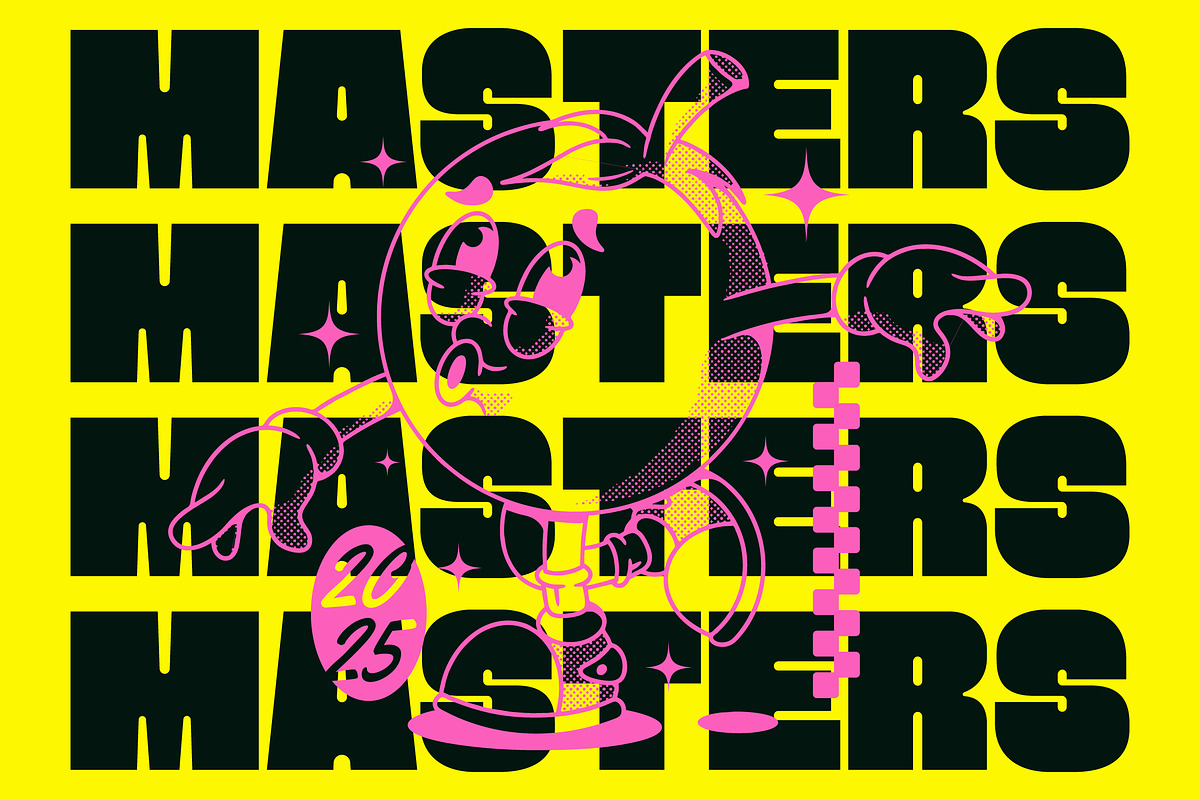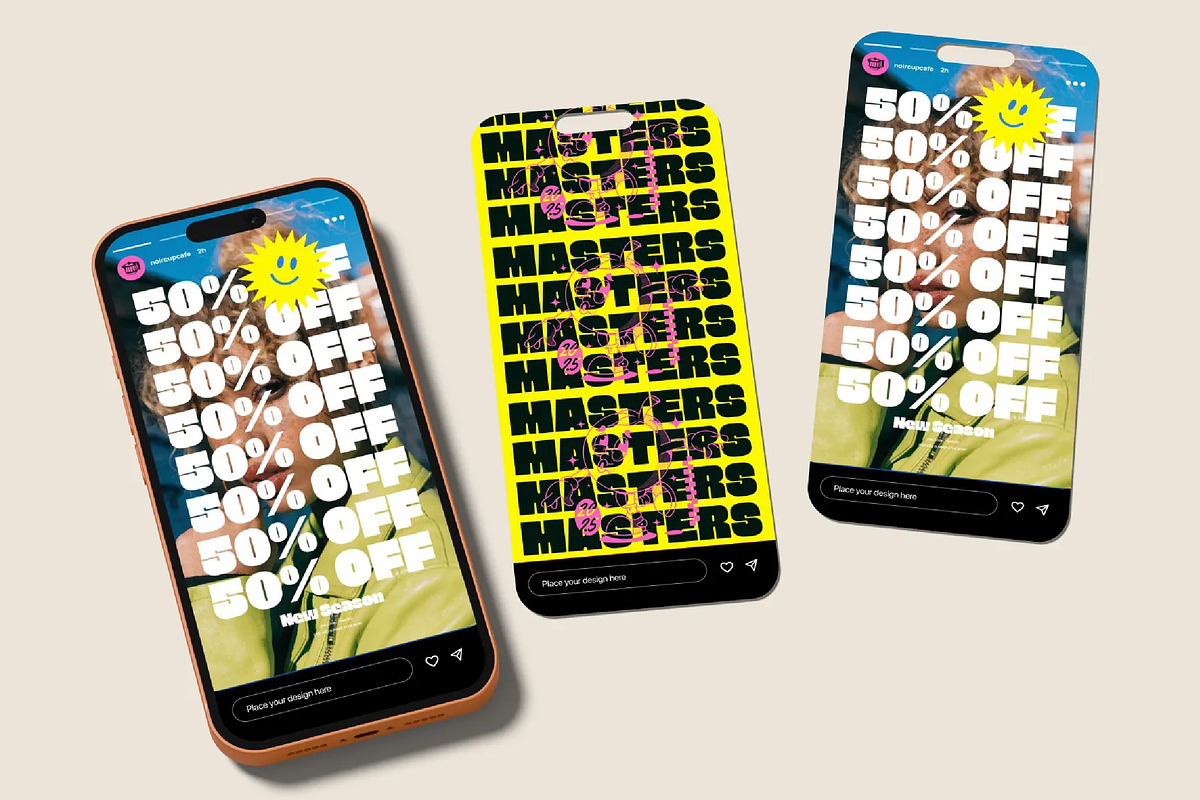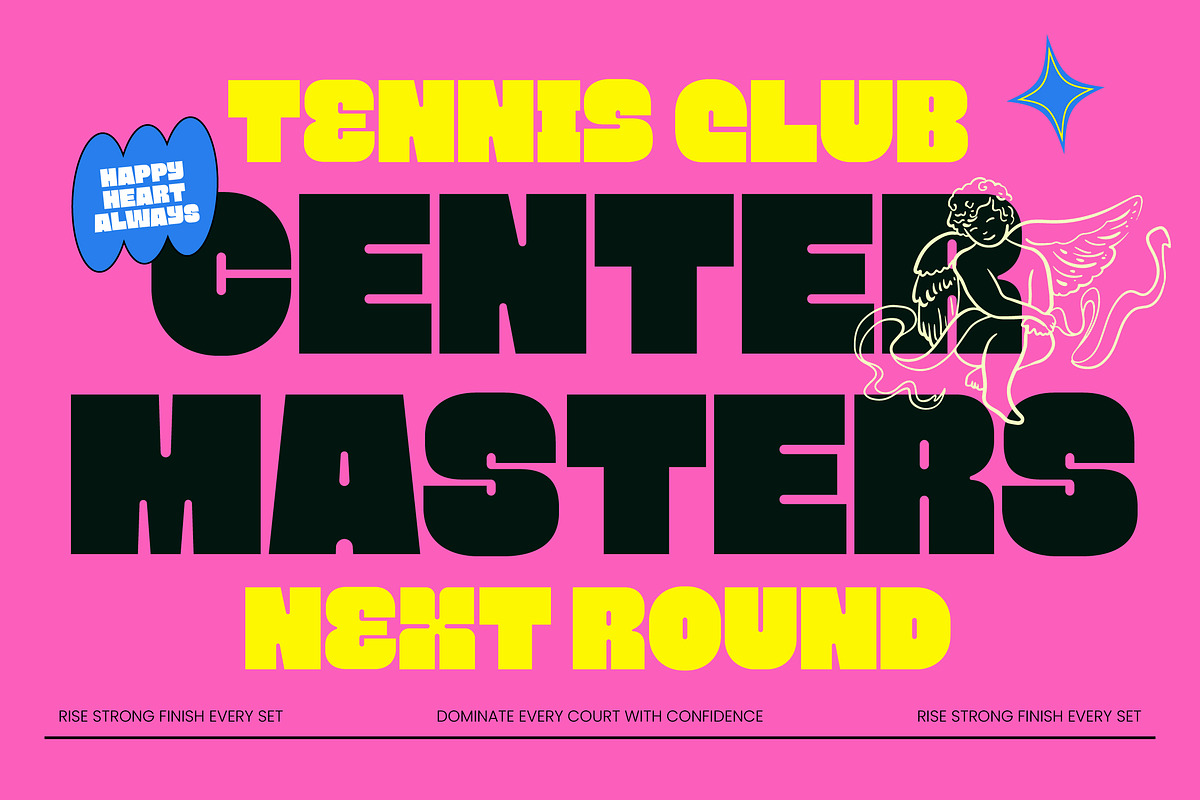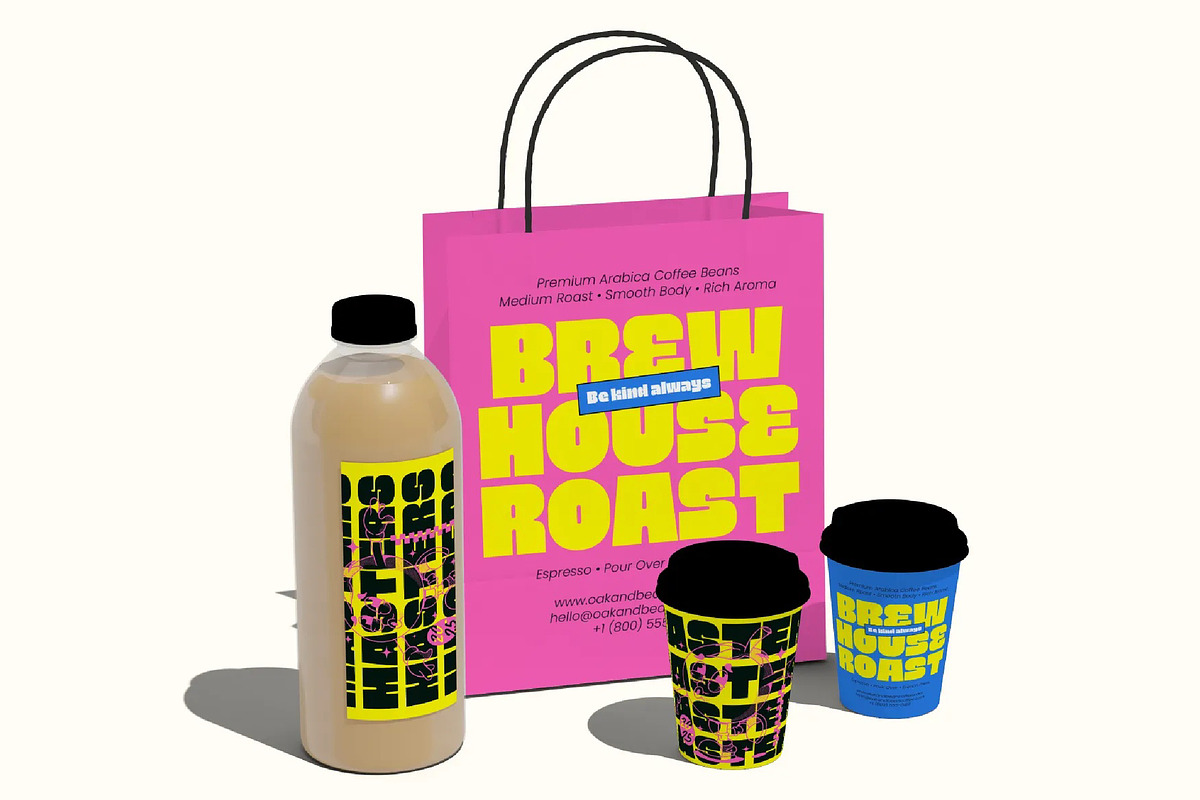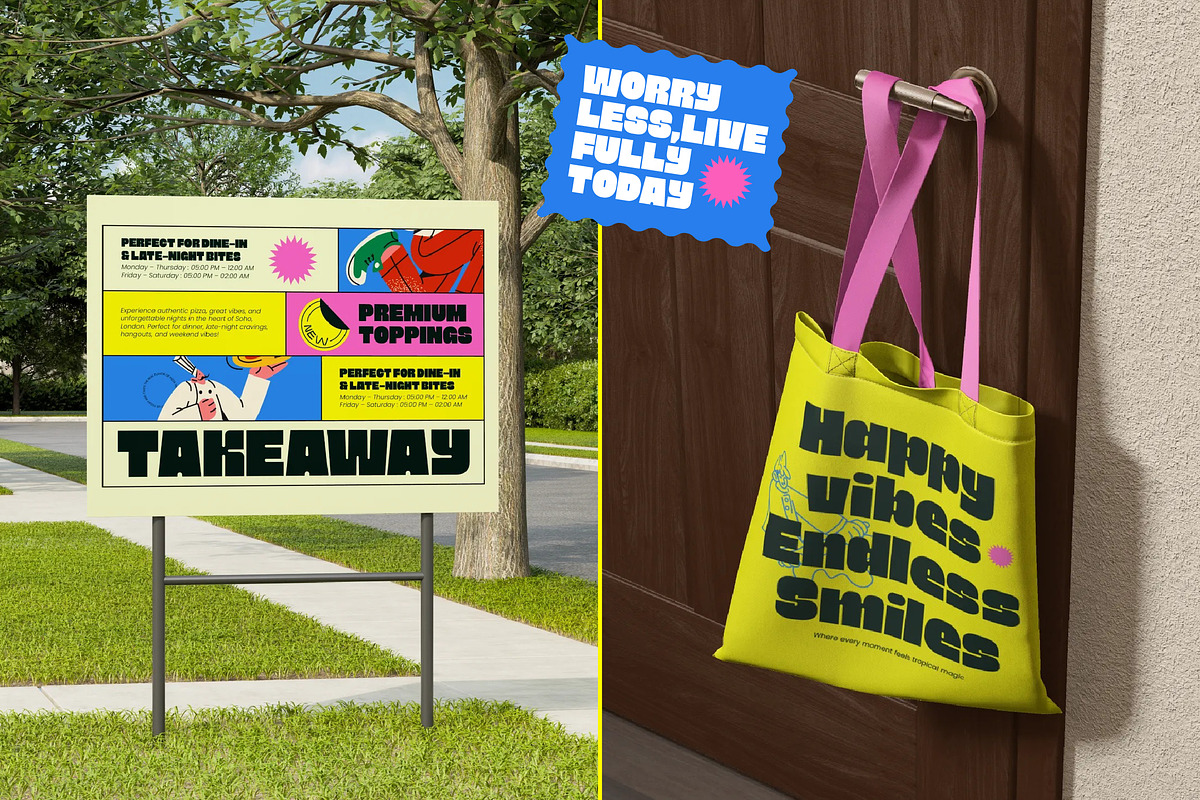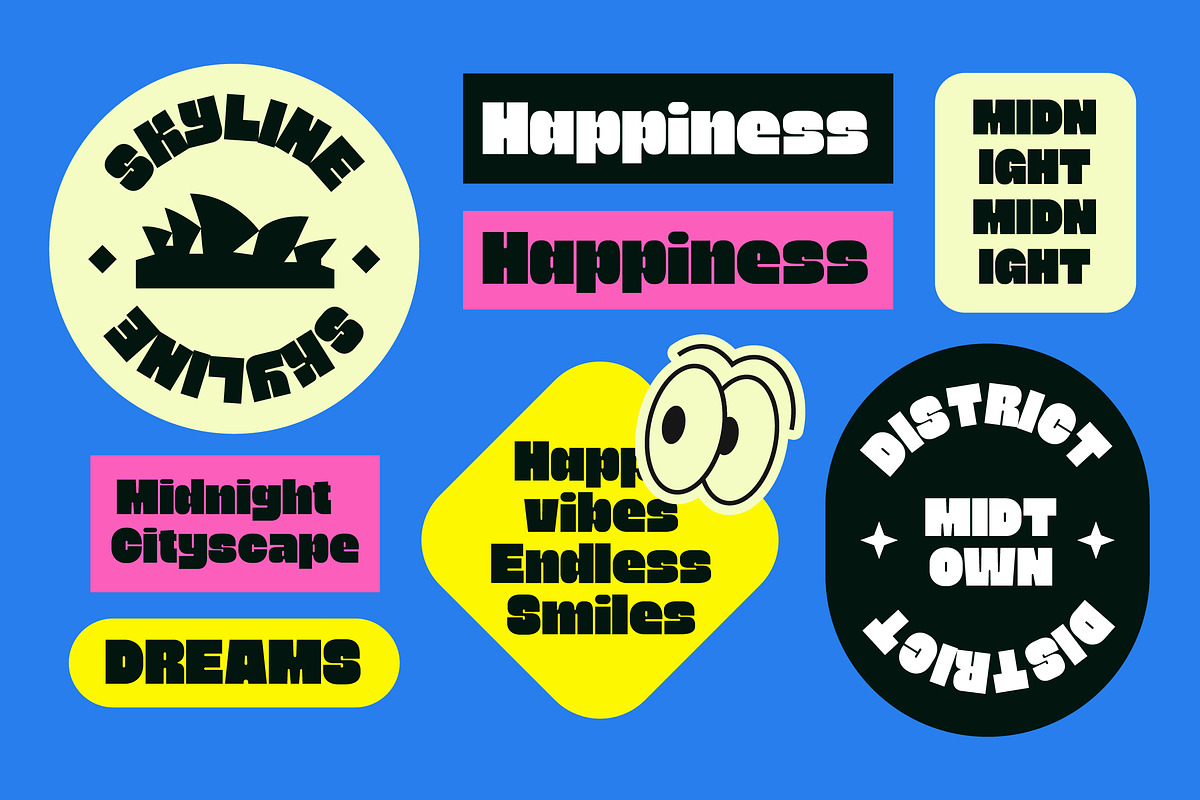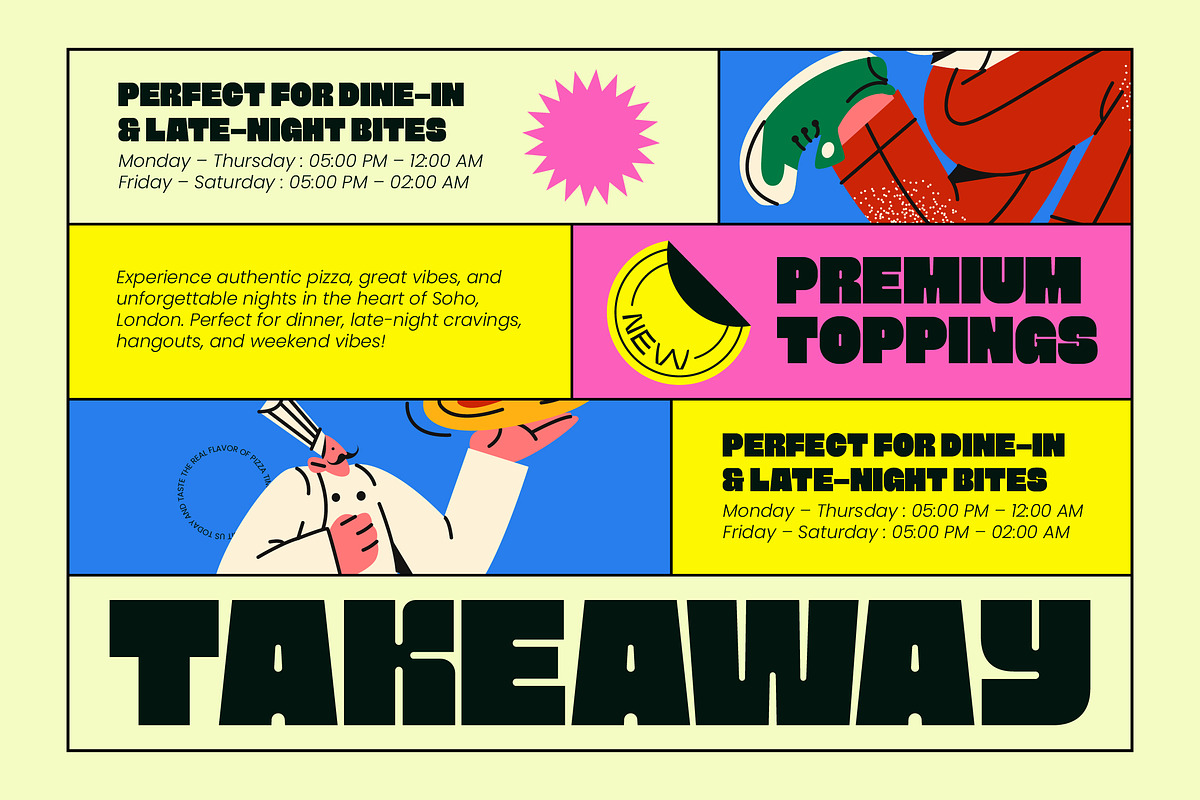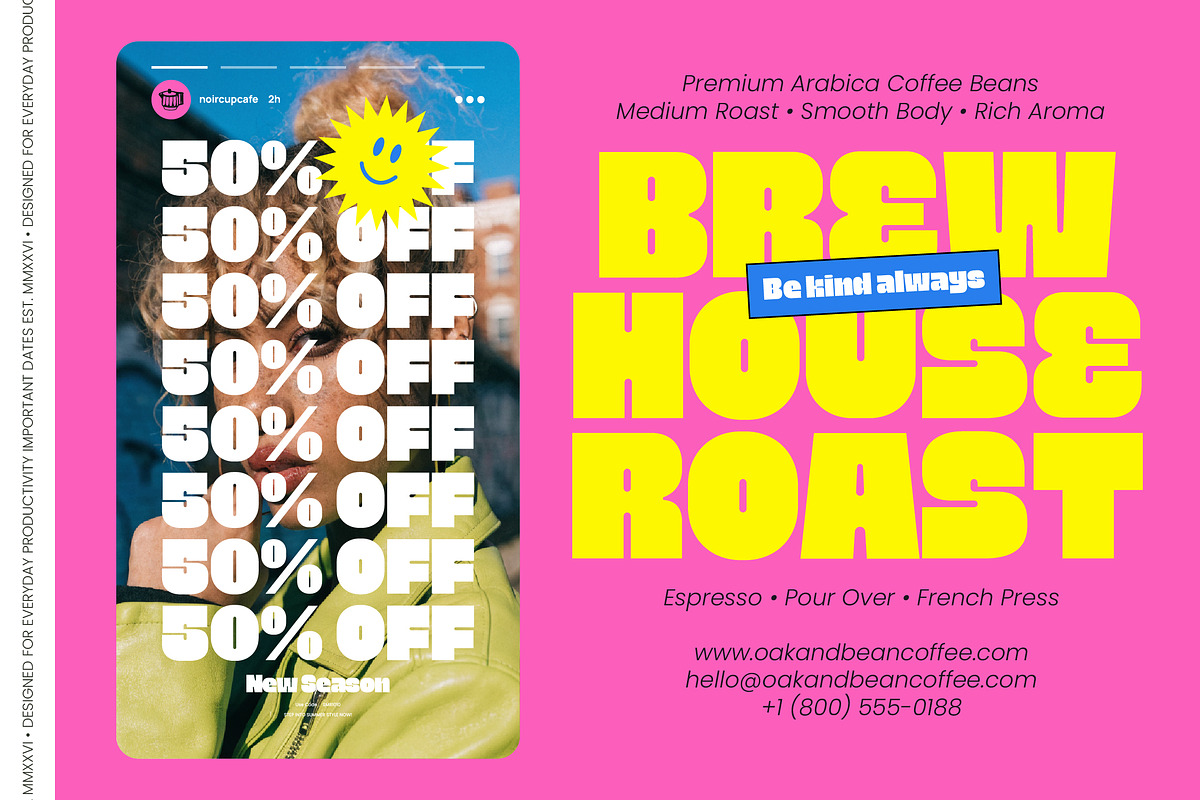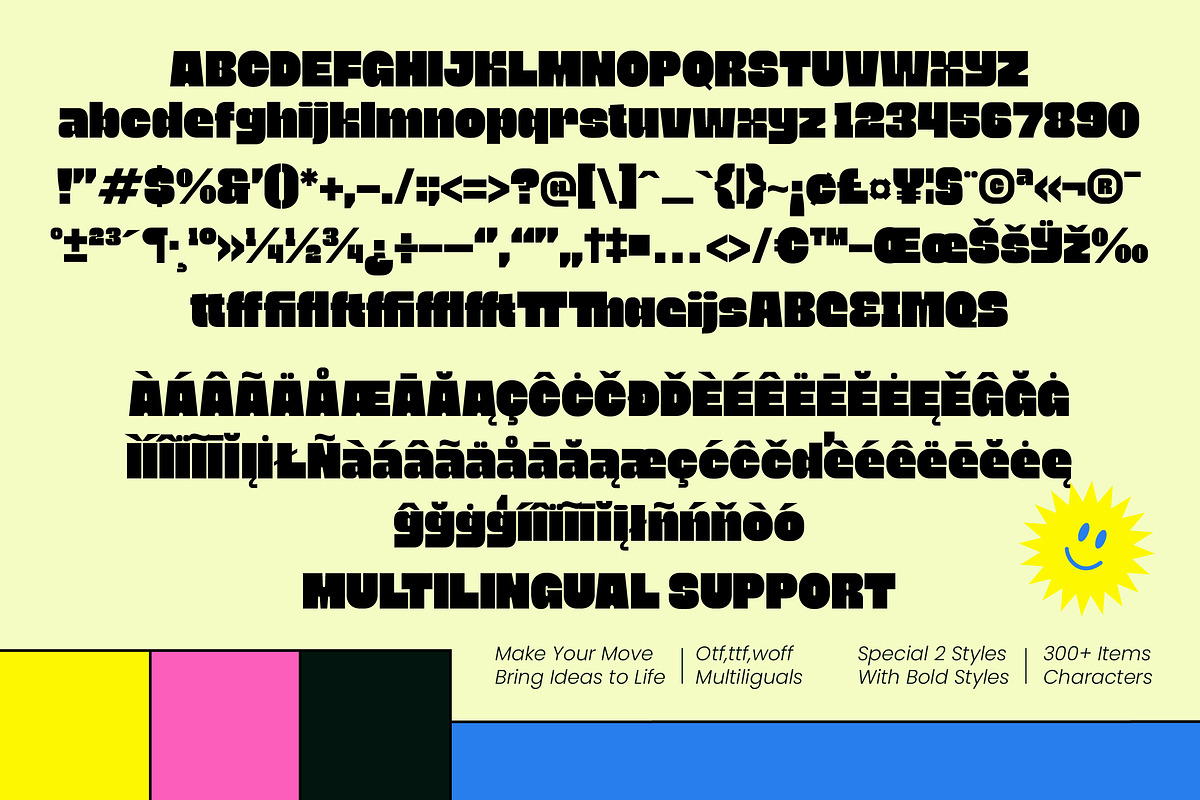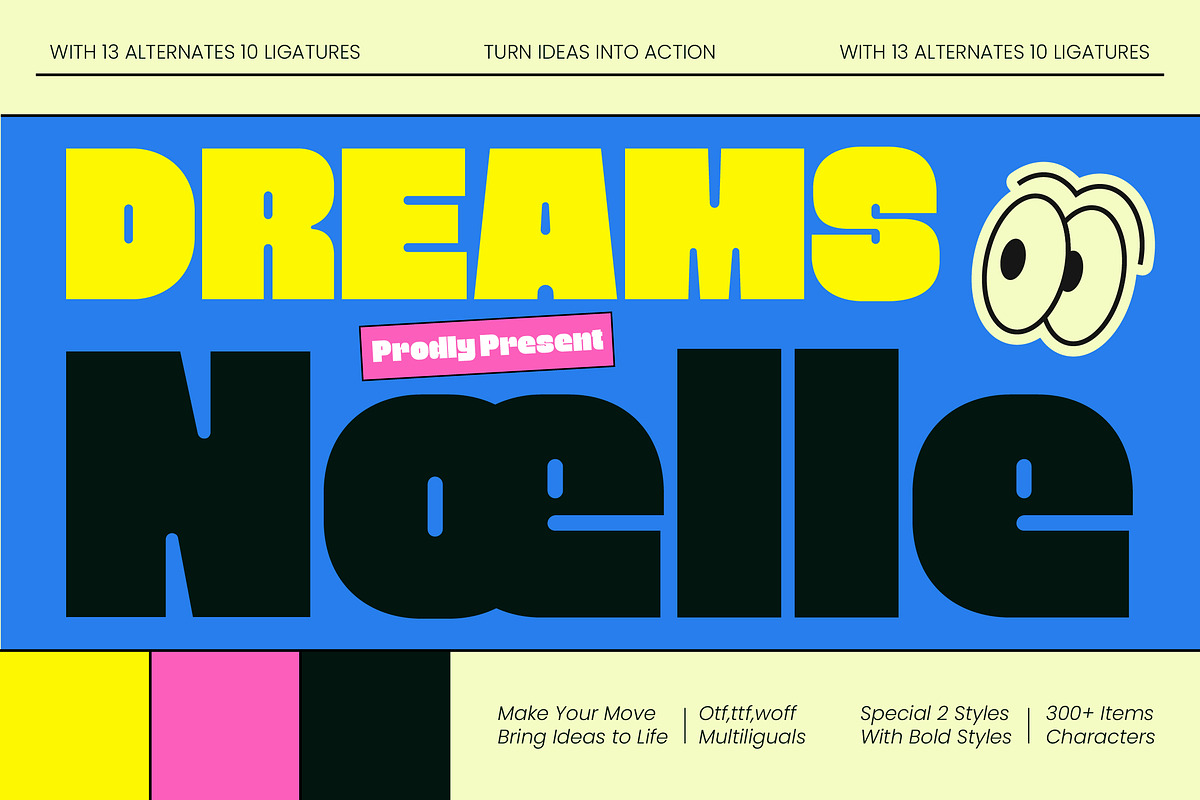
Dreams Noelle Bold Display Sans
Dreams Noelle - Bold Display Sans , Elevate your visual identity with a typeface that demands attention. Dreams Noelle - Bold Display Sans is a high-impact, ultra-modern display font designed to dominate any layout with its chunky, geometric construction. Providing a powerful commanding presence, it is the perfect choice for designers looking to inject energy and bold confidence into their work. This typeface strikes a flawless balance between contemporary playfulness and structural strength, ensuring your headlines are impossible to overlook.
Bridge the gap between modern aesthetics and global functional excellence. With its extensive multilingual support, Dreams Noelle - Bold Display Sans adapts seamlessly across global markets, making it incredibly versatile for international projects. Featuring over 300+ characters, it ensures that your message remains consistent and professional regardless of linguistic requirements. This robust toolkit allows businesses to communicate with clarity and personality on a world stage.
Unlock limitless creative potential with a premium asset built for customization. Dreams Noelle - Bold Display Sans comes equipped with 13 alternates and 10 ligatures, allowing for unique typographic expressions and dynamic layouts. Whether utilizing its special styles or its core heavy weight, this font provides the typographic flexibility needed for innovative graphic design. It is an essential tool for any creative professional seeking to push the boundaries of display typography.
Redefine your brand’s presence through strategic application. Dreams Noelle - Bold Display Sans is perfect for luxury branding, high-end packaging, and bold editorial design. It is also ideal for eye-catching social media graphics, event posters, and urban streetwear apparel where a strong visual hook is essential. By choosing Dreams Noelle - Bold Display Sans, you are investing in a commercially-focused typeface that transforms ordinary text into a compelling visual statement.